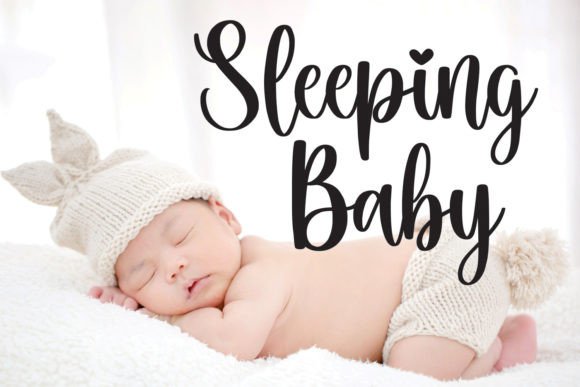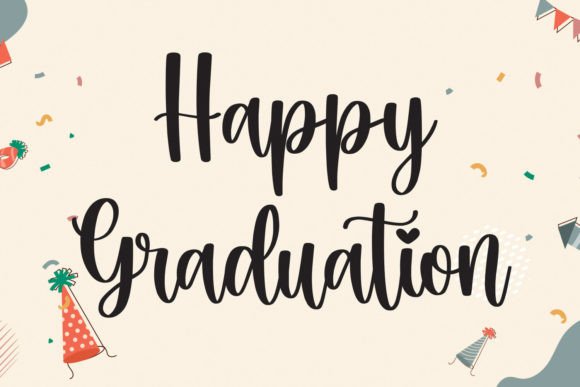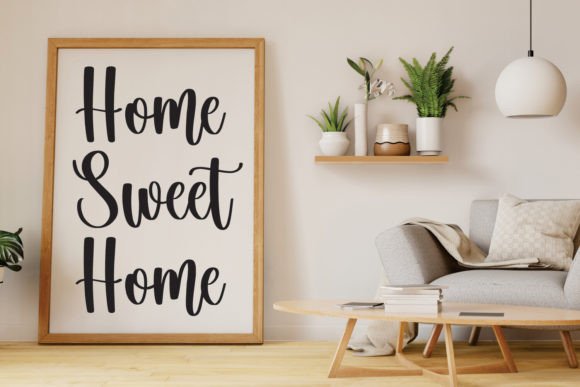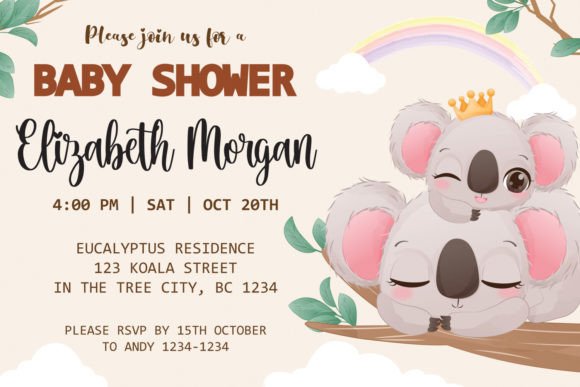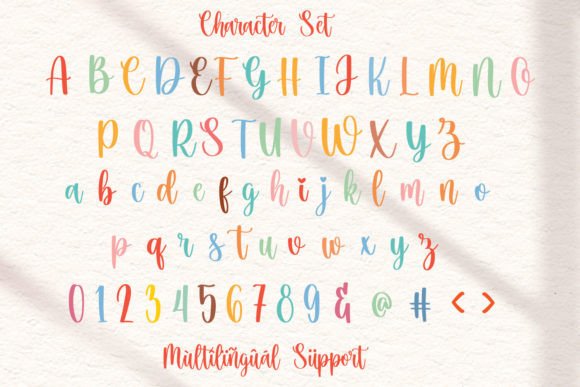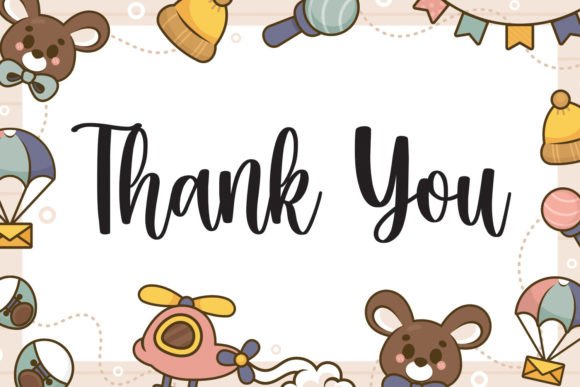
The Magical World of Barbie Font: A Designer’s Delight
I’ll never forget the time I was working on a project for a fashion brand, and my client specifically asked for a font that embodied both sophistication and youthful exuberance. I scoured the internet, tried out countless fonts, but none seemed to fit the bill. That was until I stumbled upon the Barbie Font. It was love at first sight! ✨
This beautiful script handwritten style has a perfect harmony between elegance and playfulness, making it an ideal choice for projects seeking to infuse a touch of whimsical beauty and feminine allure into their designs.
An Honest Review of Barbie Font
- ✨ Elegant and sophisticated, yet playful and youthful
- ✅ Perfect for fashion, beauty, and lifestyle brands
- 💃 Highly versatile and adaptable to various design projects
- 🎉 Beautifully crafted with attention to detail
While I absolutely adore the Barbie Font, there are a few minor quirks to be aware of: ⚠️
- 🤔 May not be suitable for very formal or corporate designs
- ⚠️ Some characters may not work well in all contexts (e.g., @ symbol)
The Designer Inspiration Behind Barbie Font
The Barbie Font is inspired by the iconic fashion doll, Barbie. The font’s creator aimed to capture the essence of Barbie’s personality: youthful, elegant, and playful. The result is a font that embodies the perfect balance between sophistication and whimsy.
Q: What type of projects is Barbie Font best suited for?
A: Barbie Font is perfect for fashion, beauty, and lifestyle brands, as well as creative projects that require a touch of elegance and playfulness.